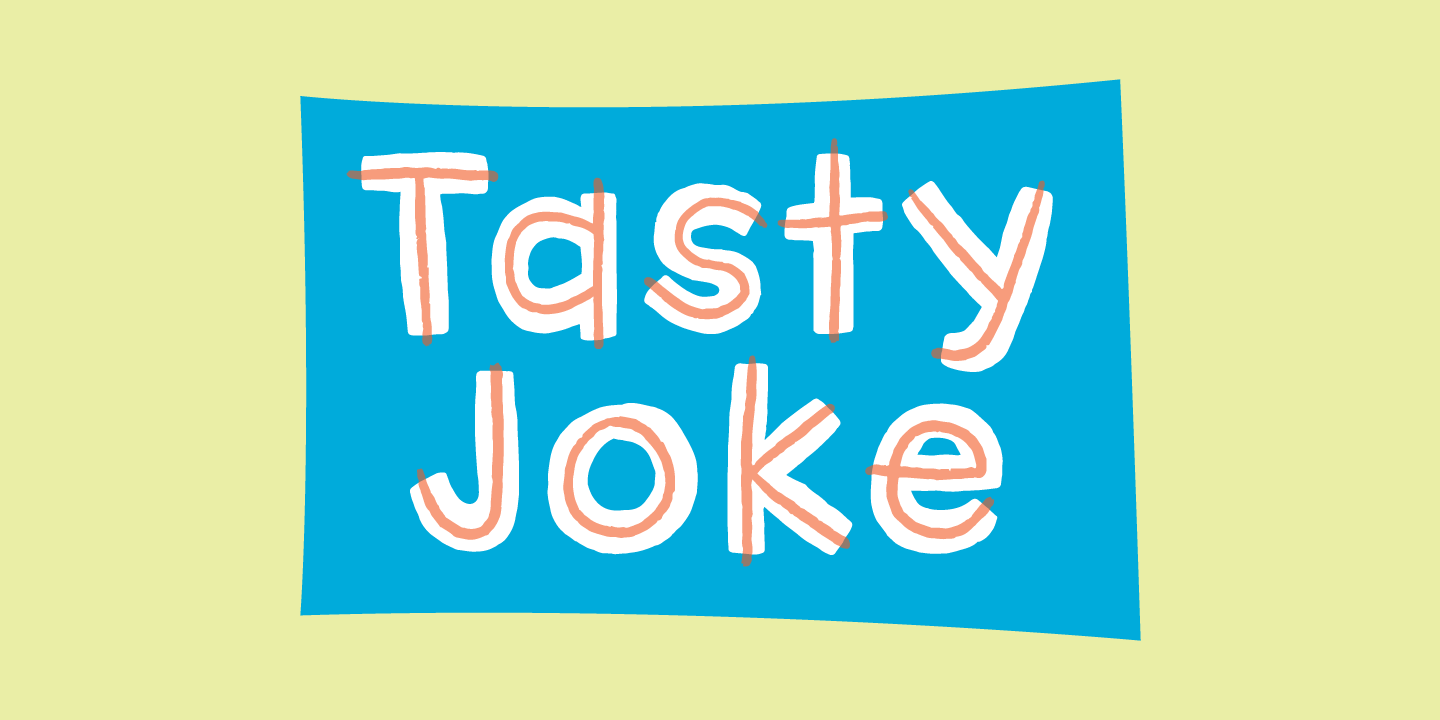
Tasty Joke Font Free Download is a fun, playful display typeface that radiates energy, humor, and creativity. Featuring chunky letterforms, quirky shapes, and a hand-drawn vibe, Tasty Joke Font is perfect for children’s books, posters, party invitations, product packaging, food branding, and social media graphics. Its cheerful and bold style makes it ideal for projects that want to feel joyful, casual, and approachable.
Whether you’re crafting fun branding, colorful event materials, or eye-catching merchandise, Tasty Joke Font brings charm and personality to your work. Its friendly, whimsical aesthetic ensures your message stands out with warmth and humor in both print and digital media.